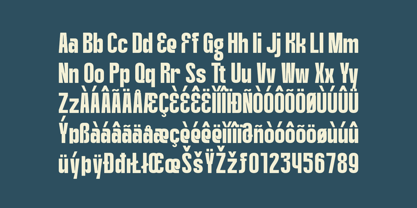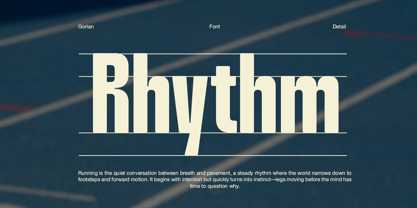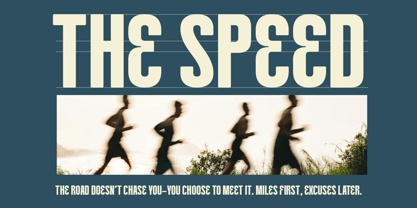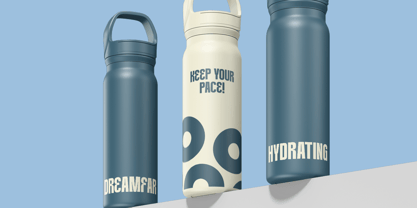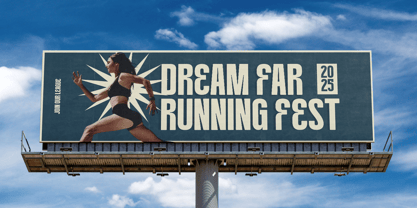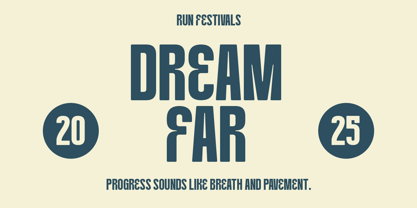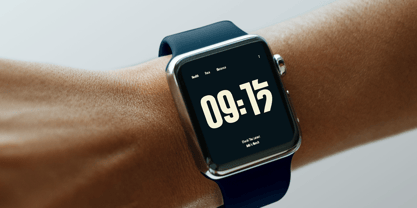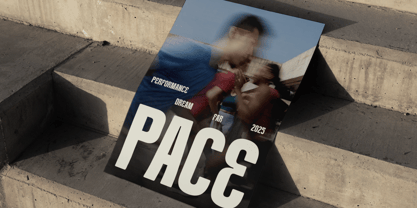
Gorian
by Pandeka Studio
The Gorian Font Family was designed by Sagara Nararya and published by Pandeka Studio. Gorian contains 1 styles.
Gorian is a bold sport condensed font designed to capture speed, focus, and competitive energy. With tall proportions and tight spacing, Gorian delivers a strong vertical presence that feels dynamic and powerful. Its clean and modern letterforms make it perfect for high-impact headlines and athletic branding where clarity and intensity are essential.
This font works exceptionally well for sports events, running and fitness campaigns, athletic apparel branding, posters, billboards, social media graphics, packaging, and editorial layouts. Featuring a single Regular style, Gorian is straightforward, versatile, and easy to use while maintaining a bold, professional sports aesthetic across both print and digital designs.
• 1 Style: Regular
• Full Character Set: Uppercase, lowercase, numbers, symbols, and punctuation